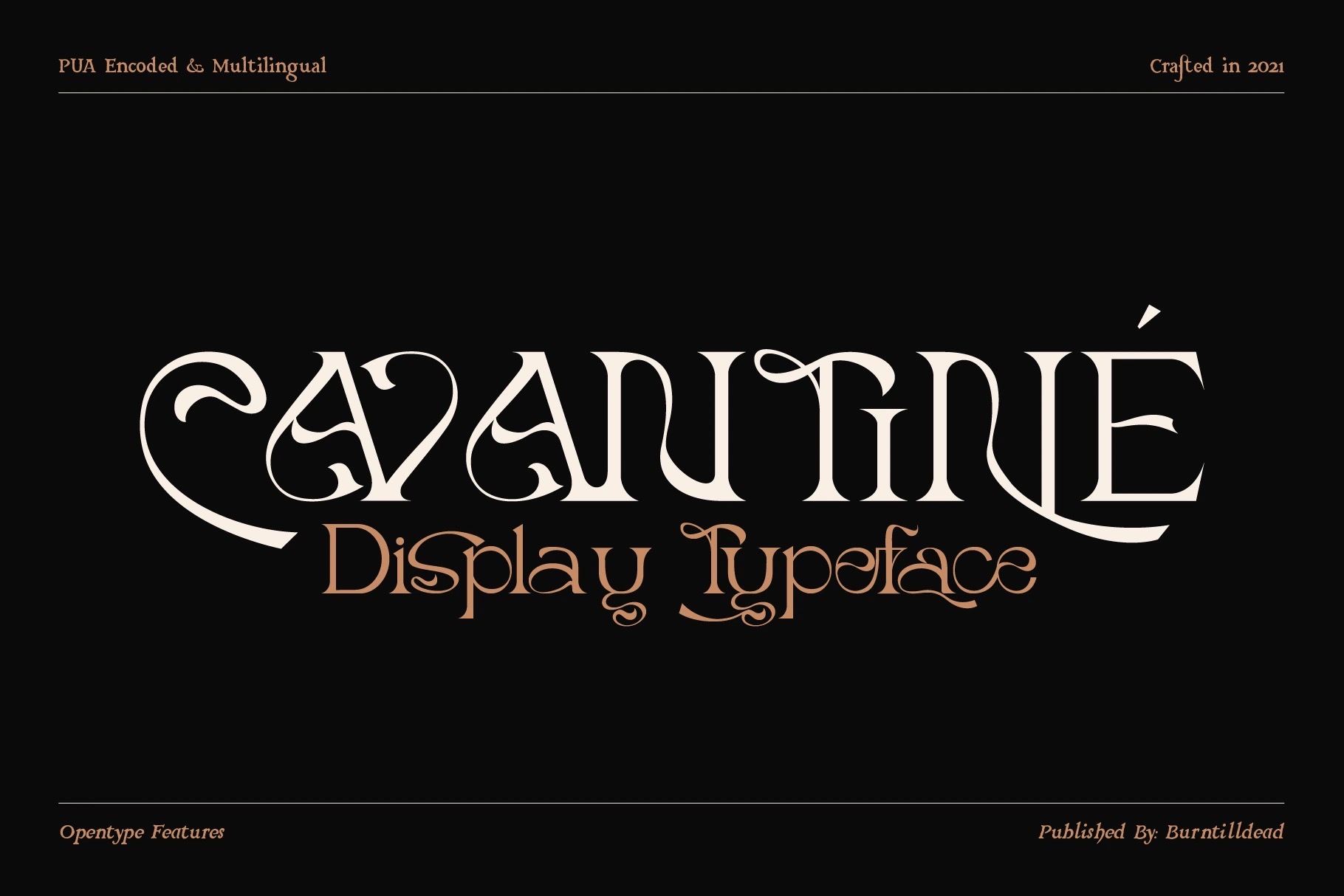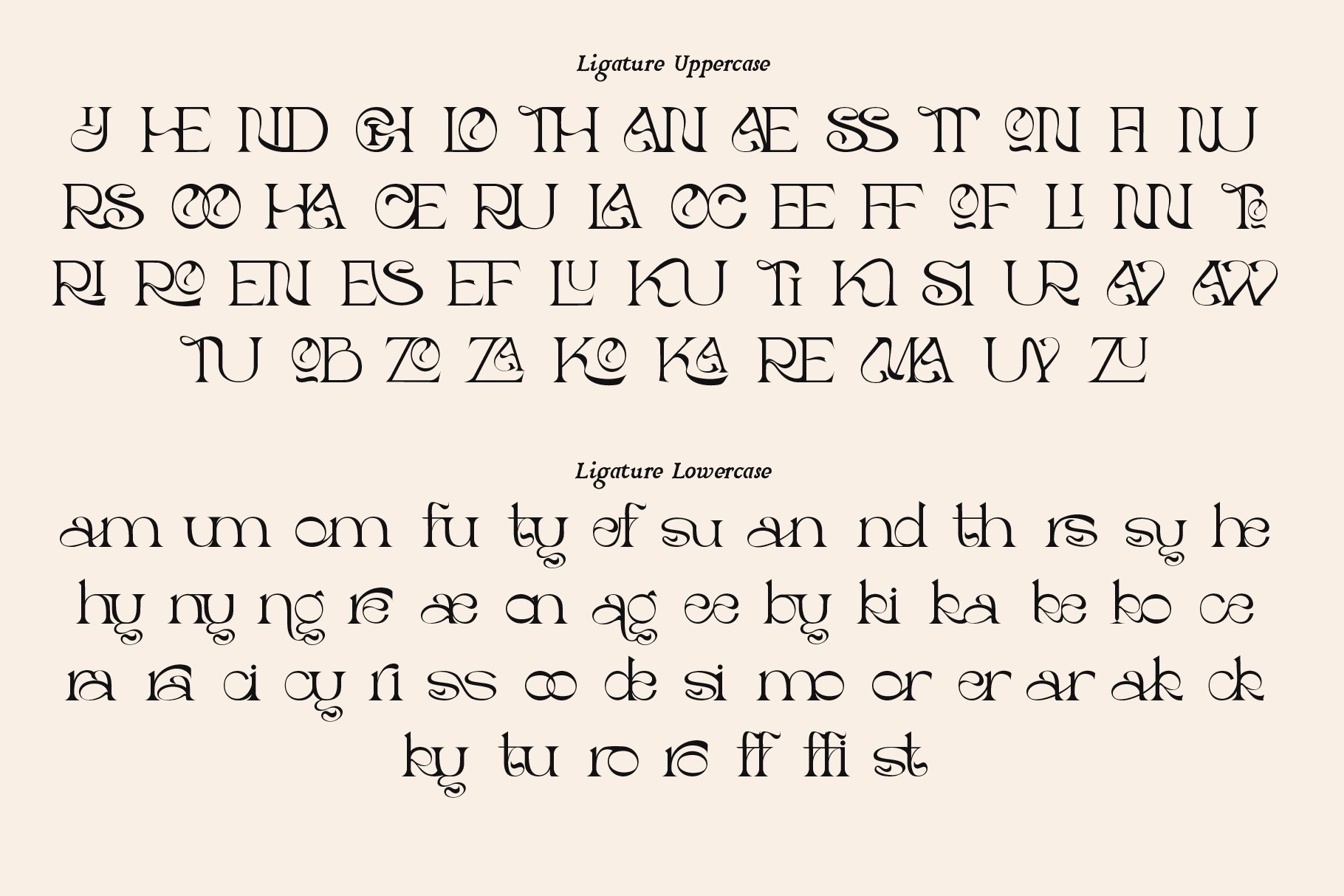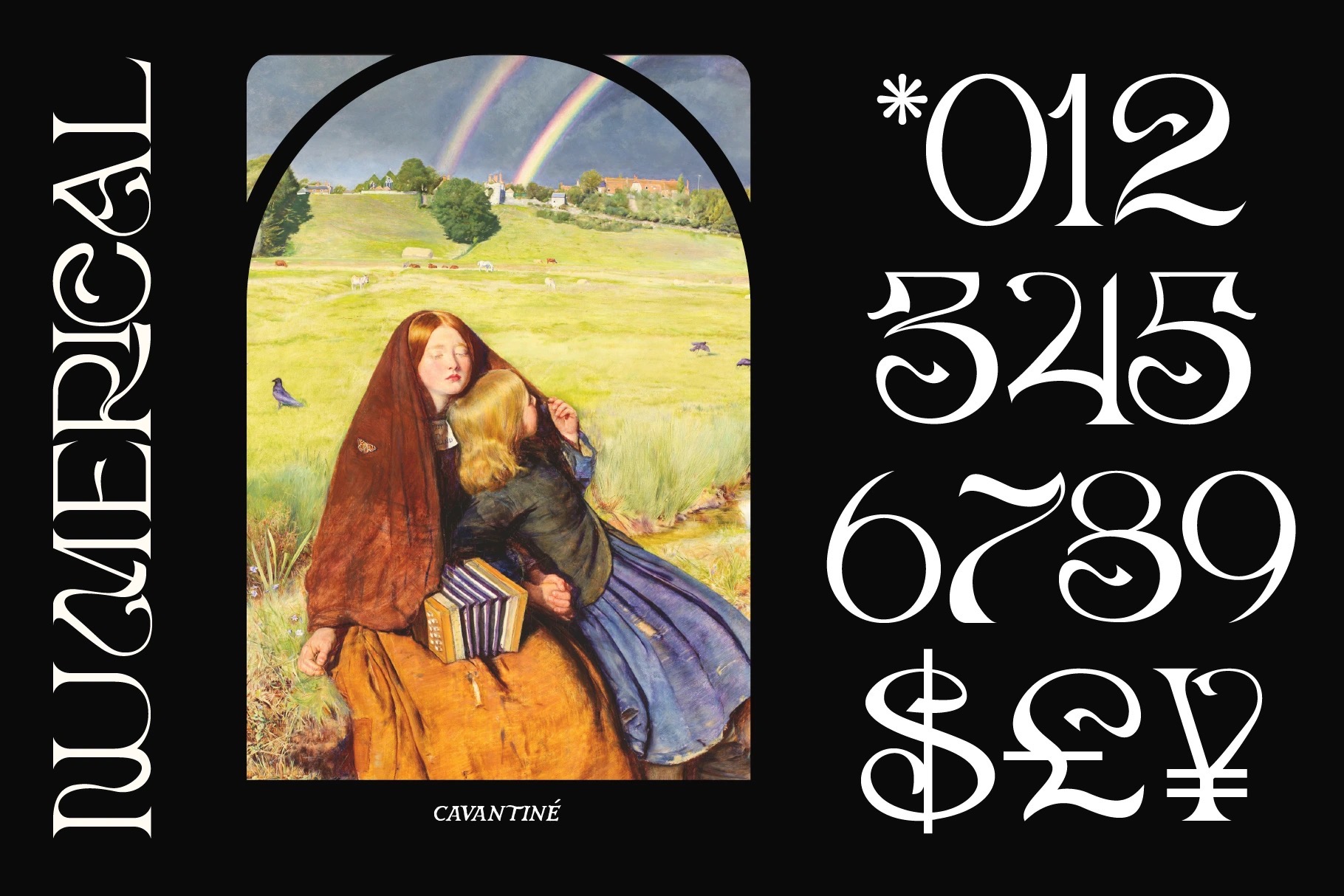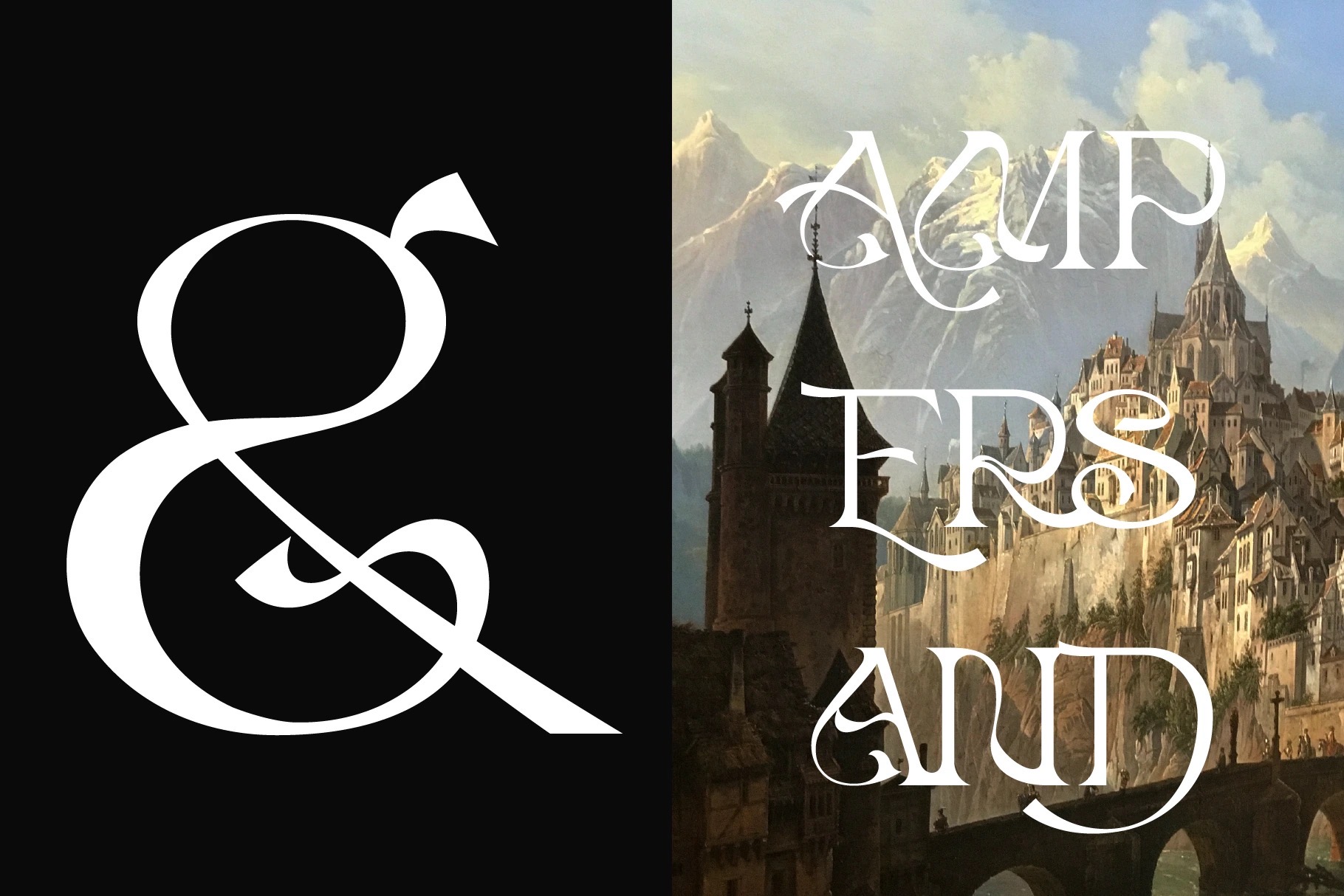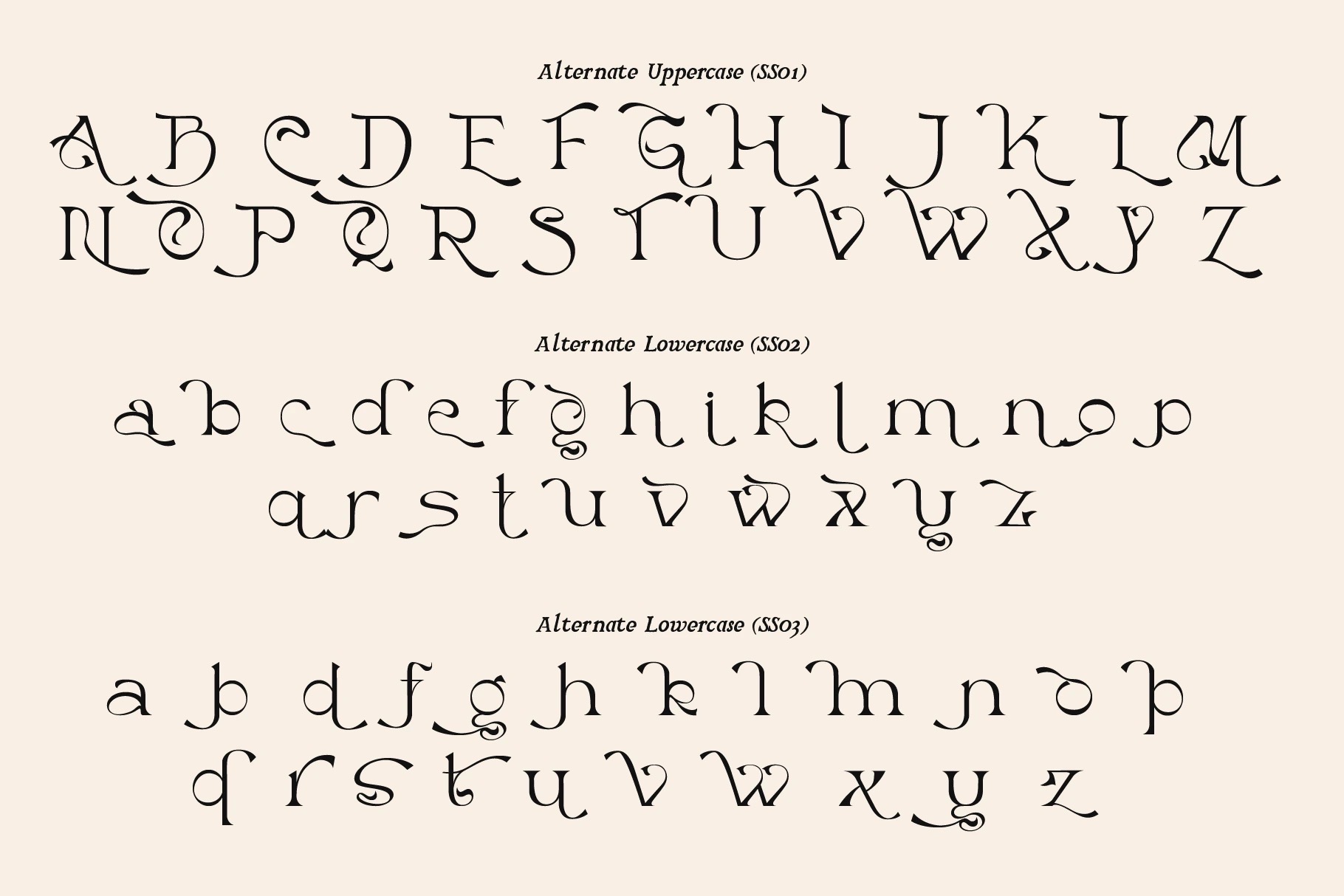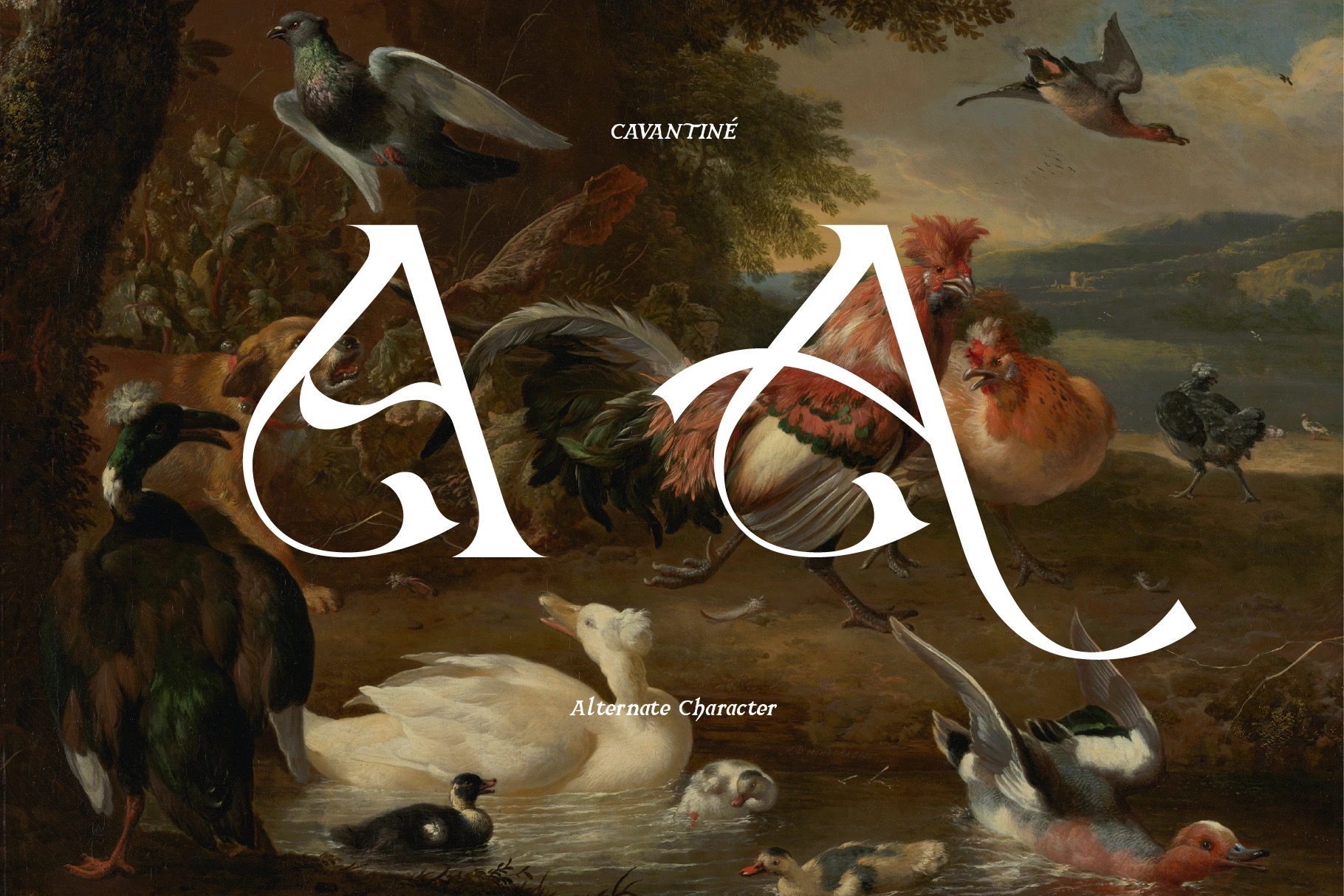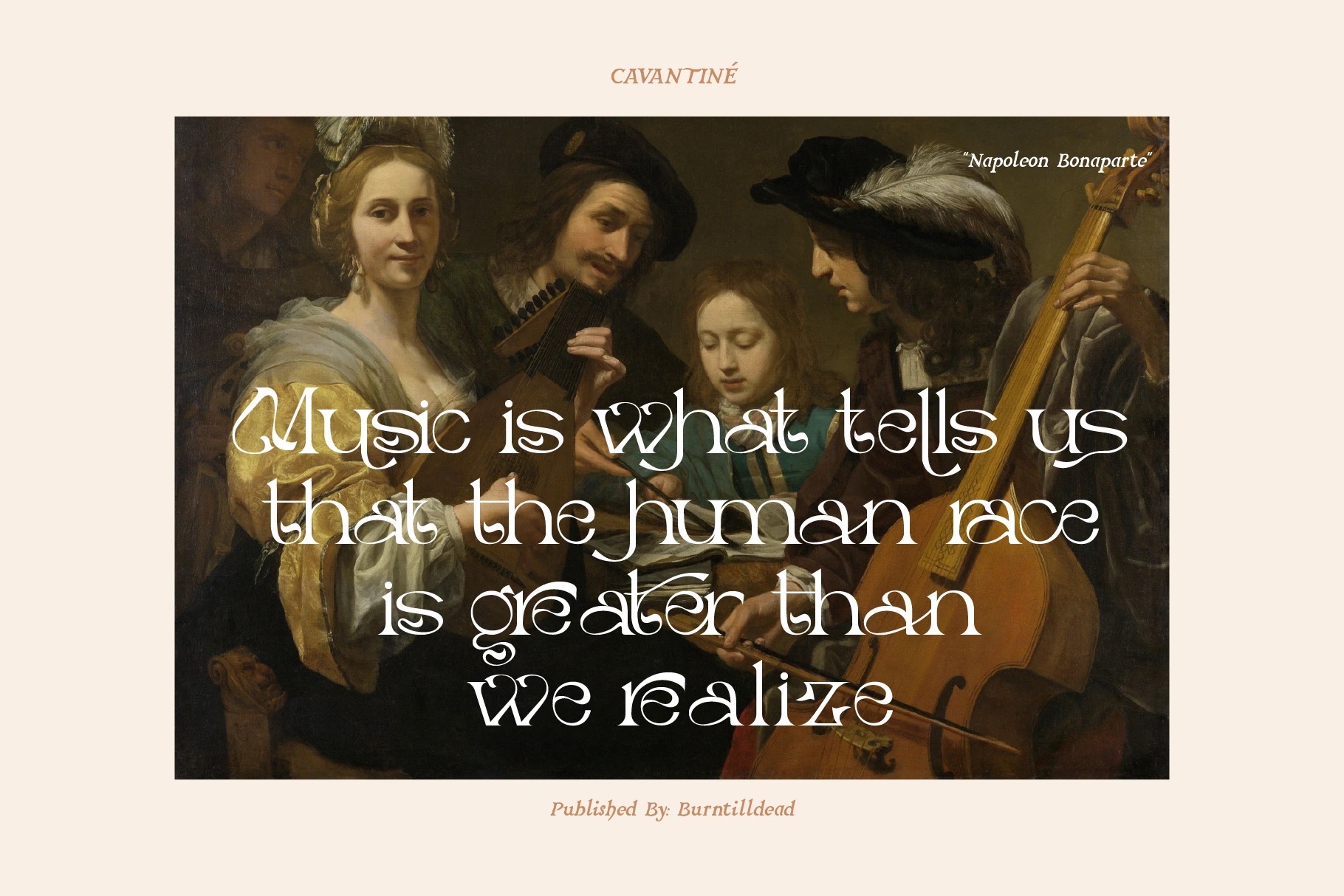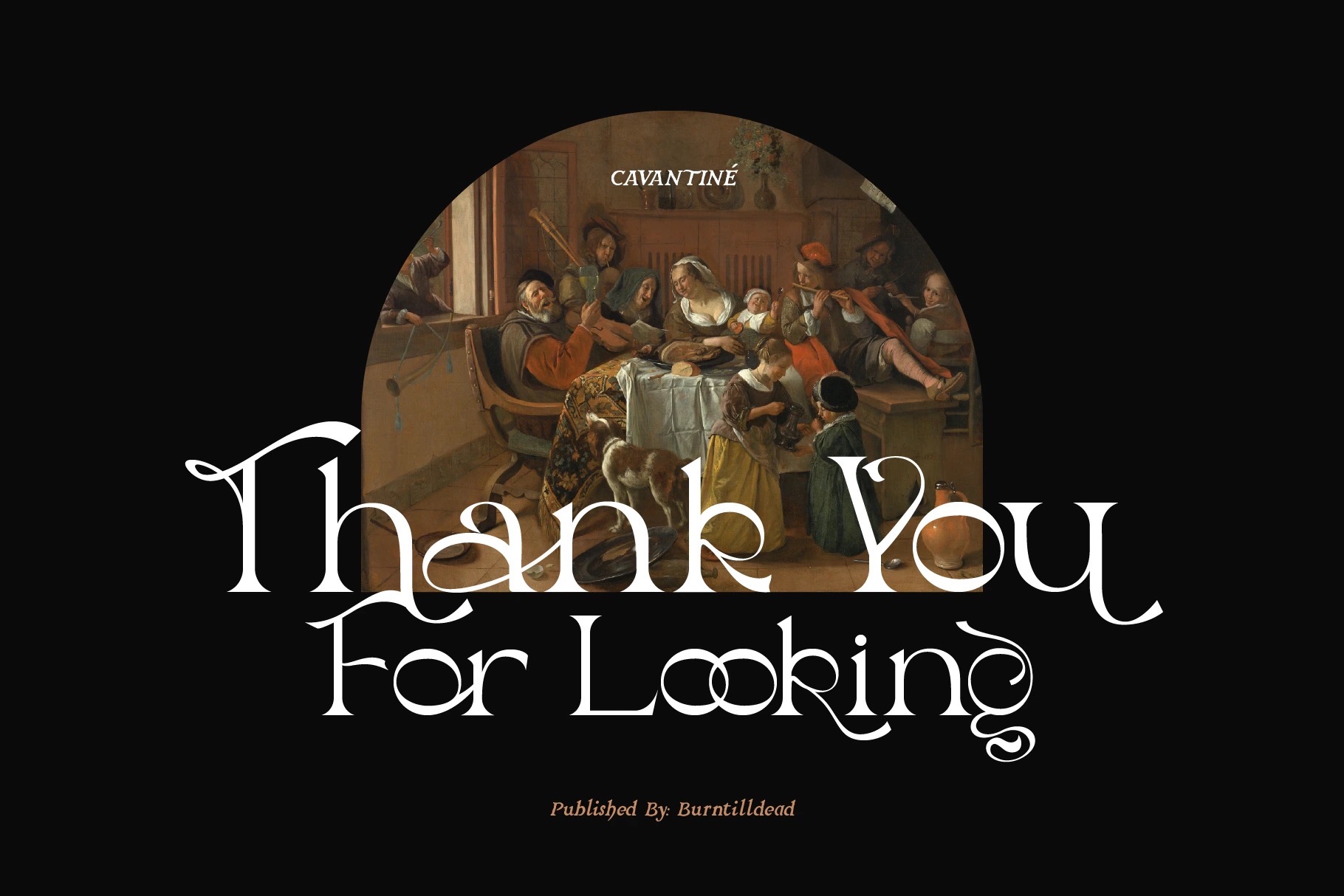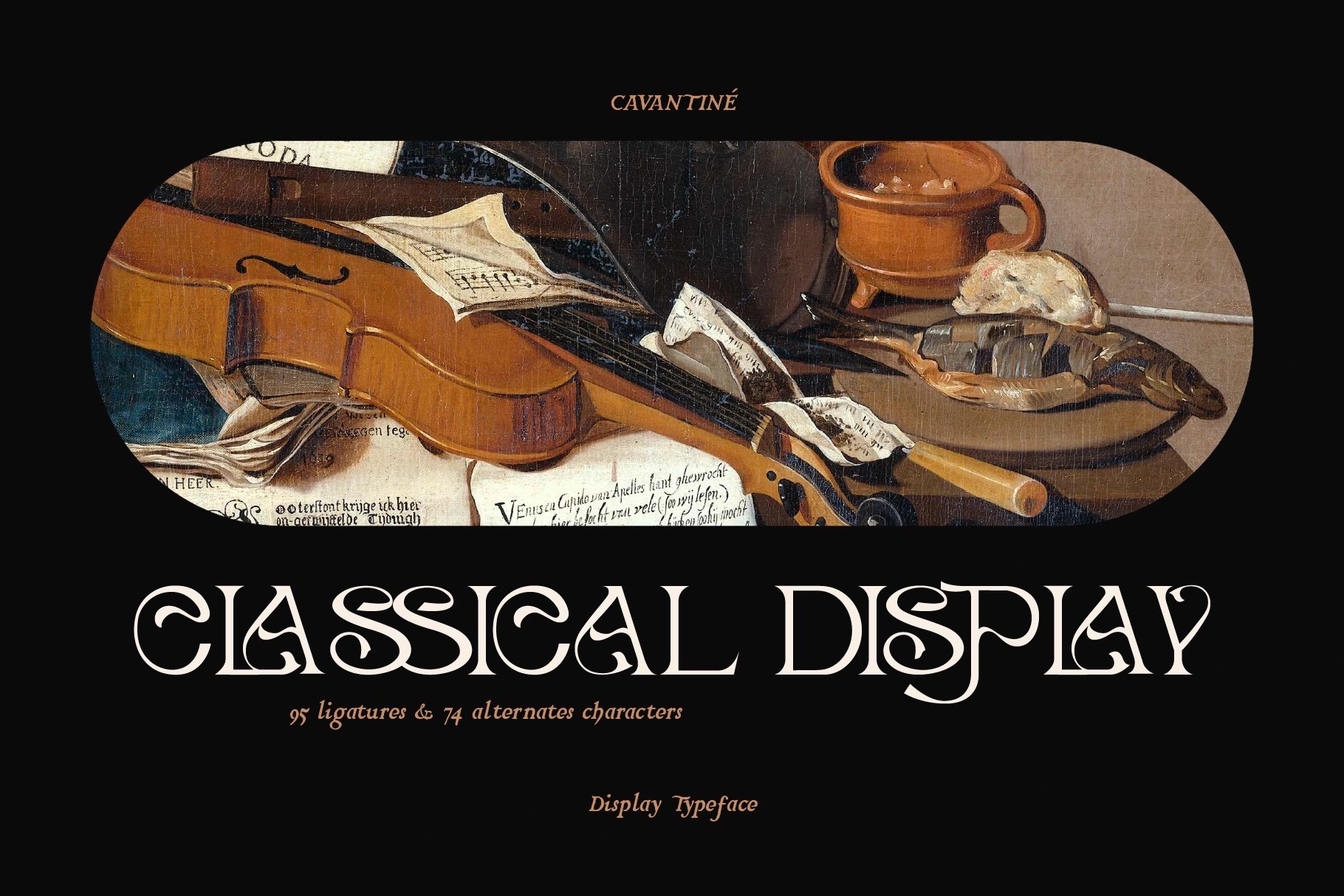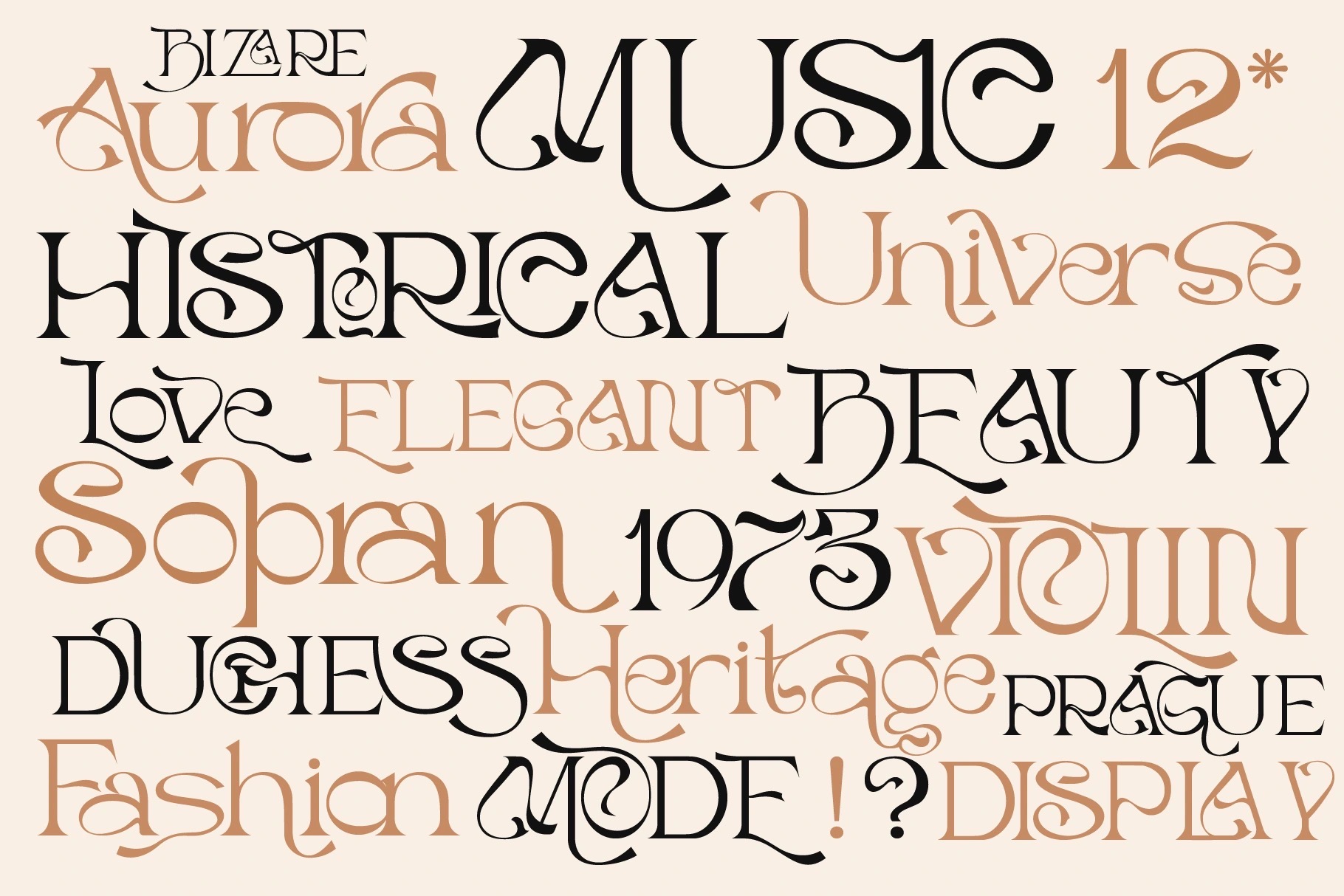
Cavantine
Proudly present “Cavantine” typeface. Powered with 95 ligatures to bring fluent combination & 74 alternate characters to get dynamic & aesthetic looks. This font classy and vintage looks so perfectly and suitable for branding, headline, logotype, sticker, editorial design, and etc.
• A – Z set (Uppercase & Lowercase)
• Number
• Punctuation
• Alternates
• Ligatures
• Multilingual